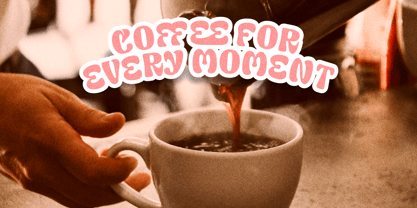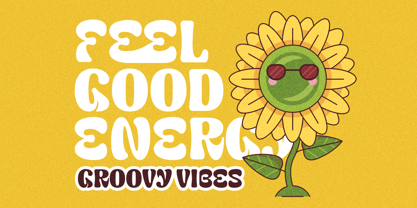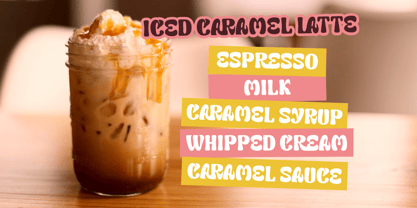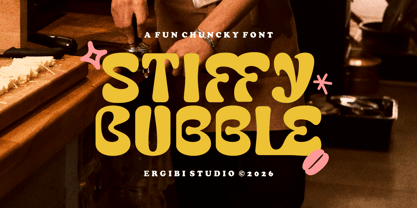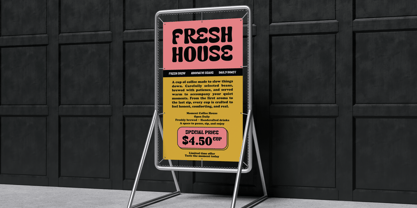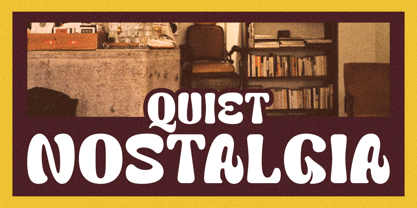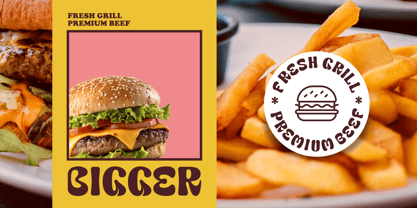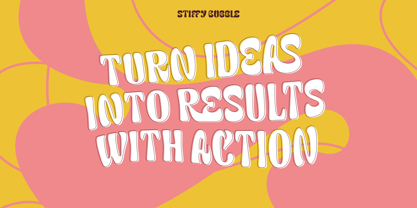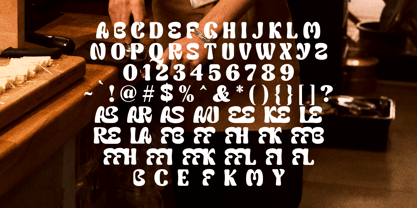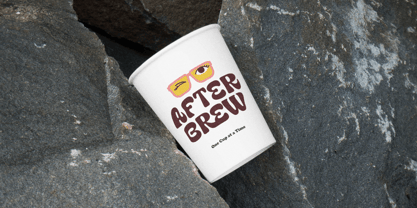
Stiffy Bubble
by Ergibi Studio
The Stiffy Bubble Font Family was designed by Riyadh Rahman and published by Ergibi Studio. Stiffy Bubble contains 1 styles. More about this family
Stiffy Bubble is a bold, chunky display font that delivers a fun and playful personality with a strong visual impact. Featuring soft curves, bubbly shapes, and a slightly retro vibe, this typeface strikes a perfect balance between quirky charm and modern style. Its thick, rounded forms make it highly eye-catching and easy to read, making it ideal for branding, packaging, posters, headlines, and social media designs. Stiffy Bubble brings a warm, friendly feel while still standing out with confidence.